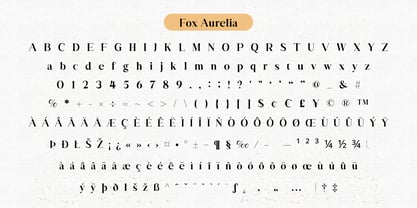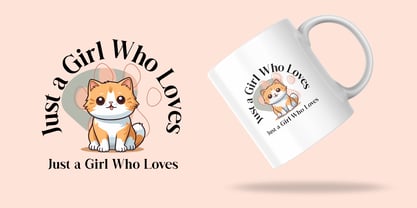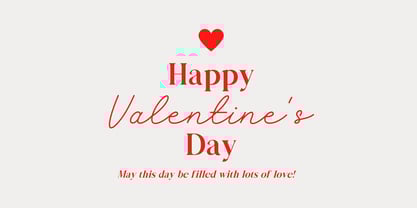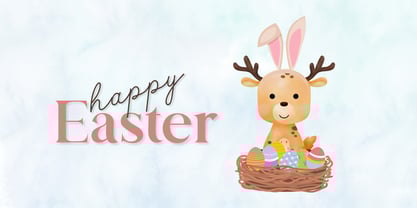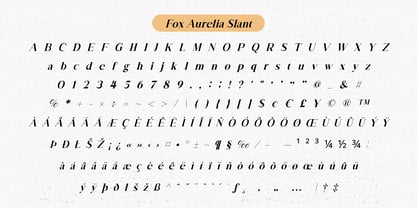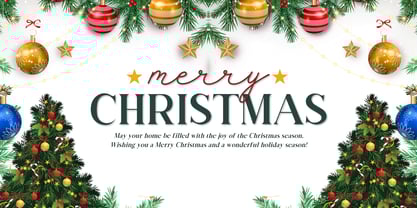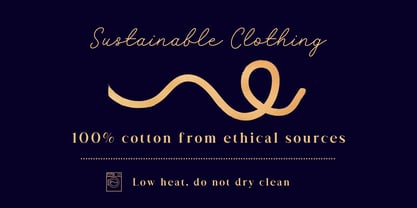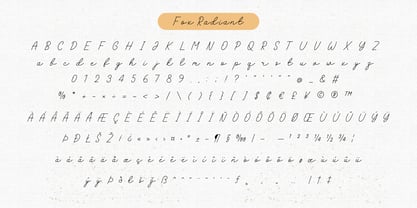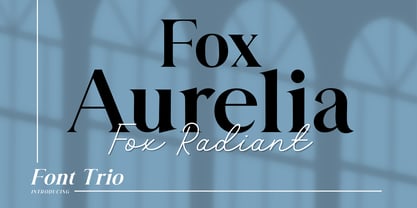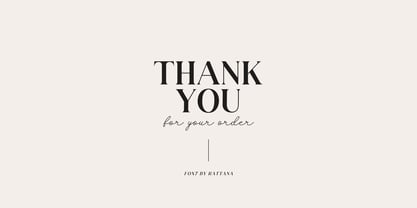
Fox Aurelia & Fox Radiant
The Fox Aurelia & Fox Radiant Font Family was designed by Rattana Rattanawan and published by Fox7. Fox Aurelia & Fox Radiant contains 3 styles and family package options. More about this family
Fox Aurelia, Fox Aurelia Slant & Fox Radiant – Elegant Font Trio
Introducing the Fox Aurelia Font Trio — a beautiful set of typefaces combining timeless elegance with modern charm. This trio offers everything you need for creating sophisticated, stylish designs.
Fox Aurelia is a bold, high-contrast serif font with a classic and luxurious feel — perfect for branding, editorial layouts, and invitations.
Fox Aurelia Slant offers a dynamic slanted version of the serif, bringing extra movement and style to your typography.
Fox Radiant is a graceful handwritten script that adds a soft ideal for logos, wedding stationery, and special occasions.
Together, these three fonts create a harmonious blend of structure and flow, perfect for high-end, romantic, and minimalist design projects.